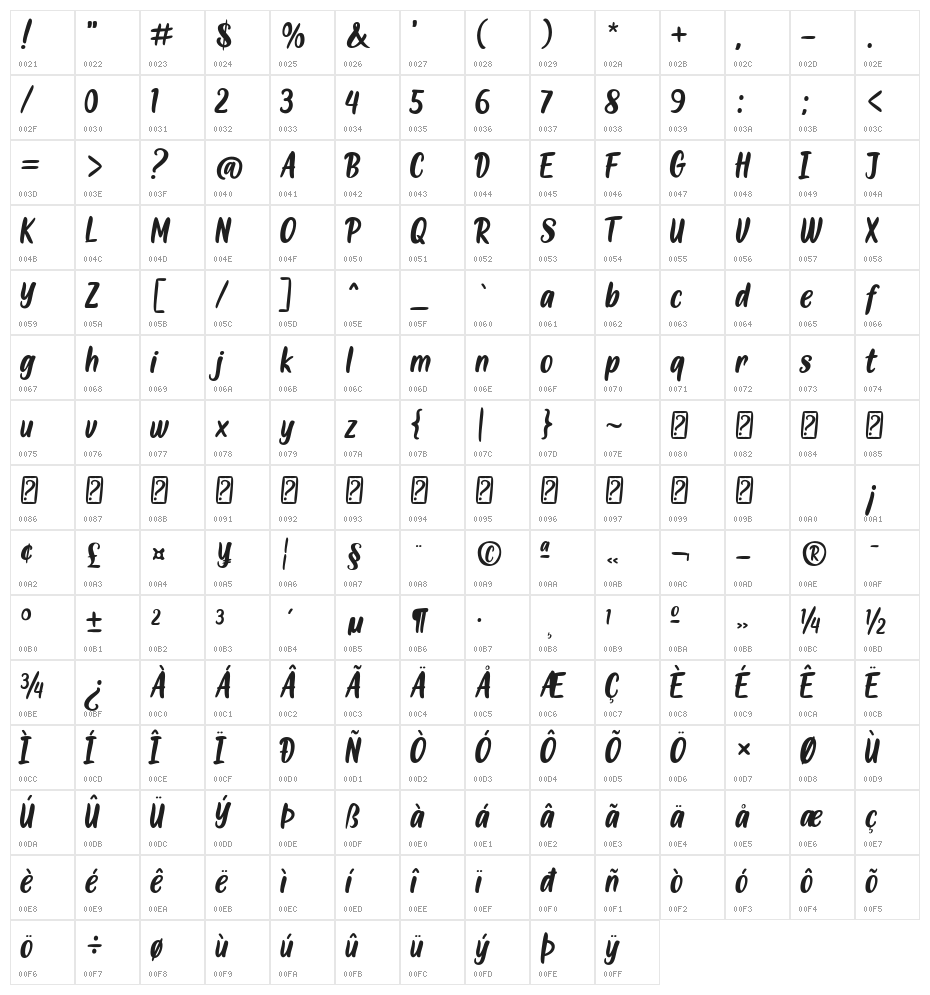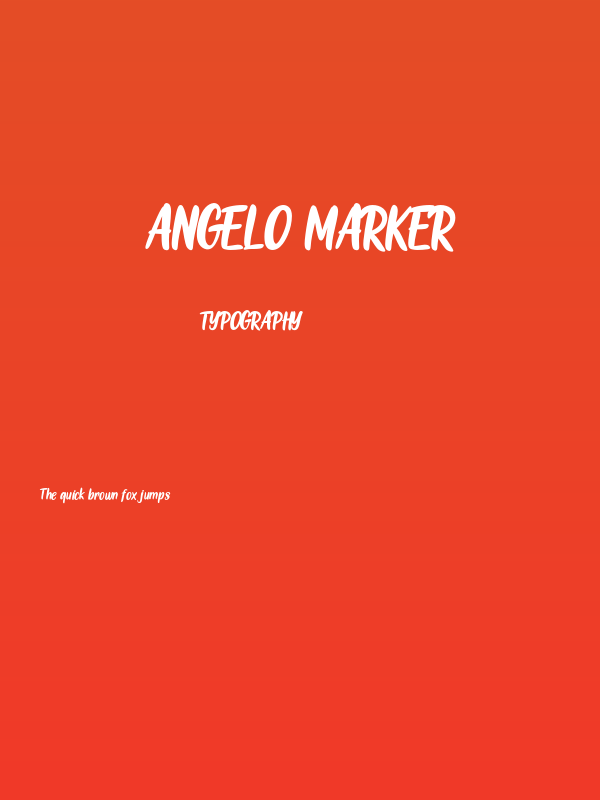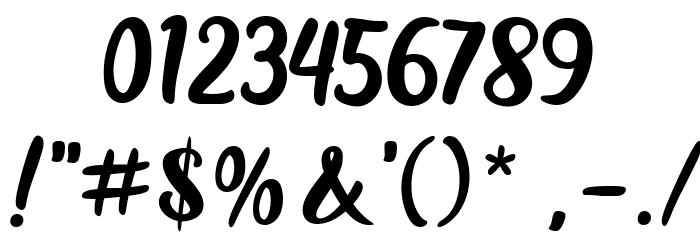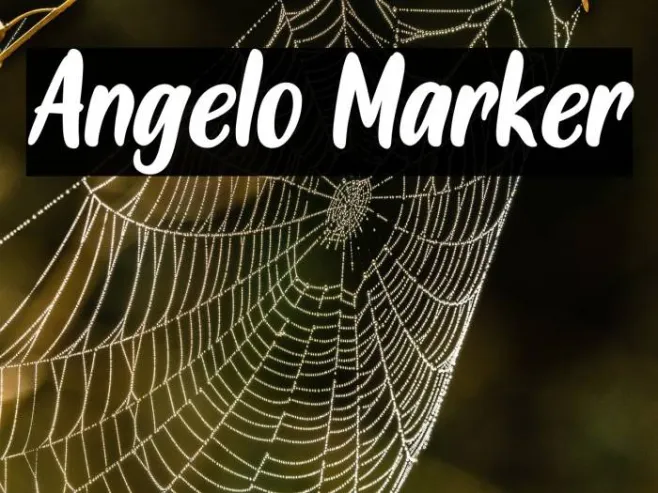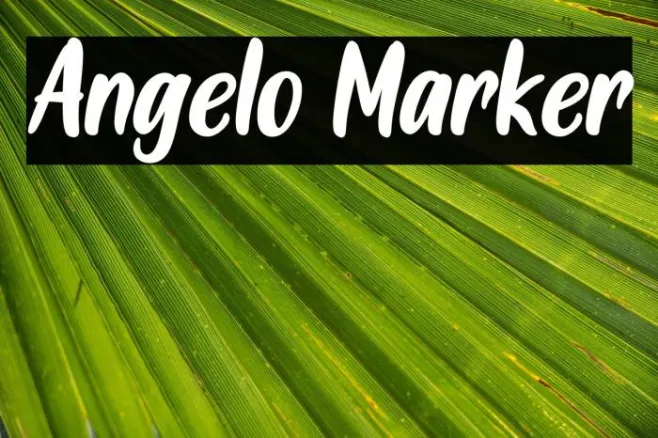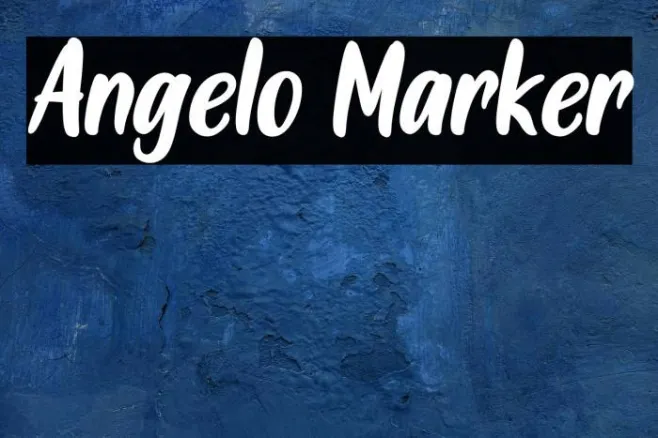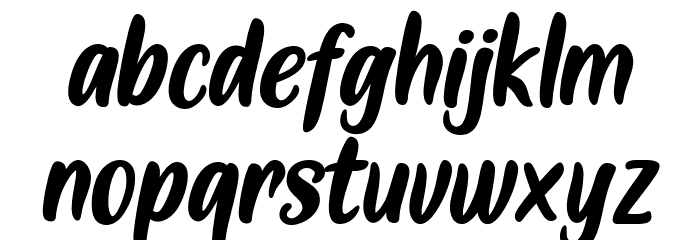
Angelo Marker Font
Angelo Marker Description
This font exudes a bold and energetic style, reminiscent of hand-drawn marker strokes. The letters are rounded and slightly slanted, giving a casual yet impactful appearance. The uppercase and lowercase characters maintain a consistent flow, with smooth curves and a dynamic rhythm. The numbers and special characters are equally expressive, ensuring a cohesive look across all text elements. This font is perfect for projects that require a personal touch, combining readability with a playful aesthetic.
| Proposed Projects | Ideal for posters, social media graphics, branding projects, and any design needing a lively, personal touch. |